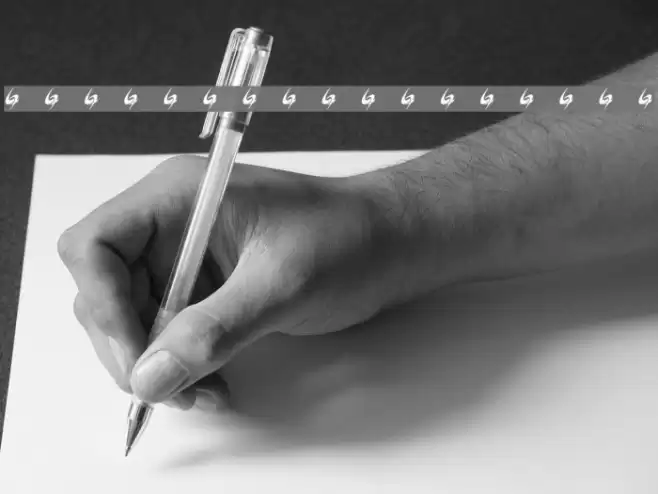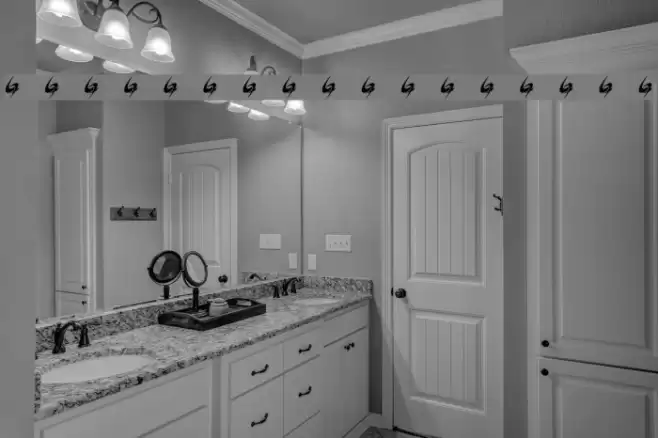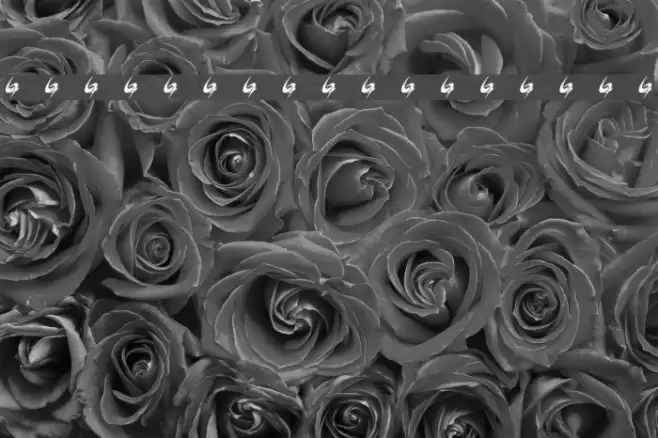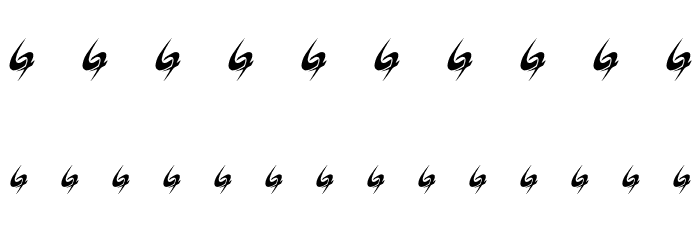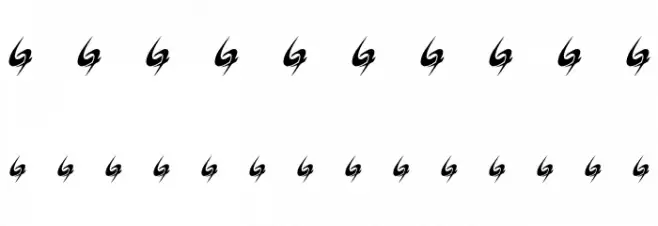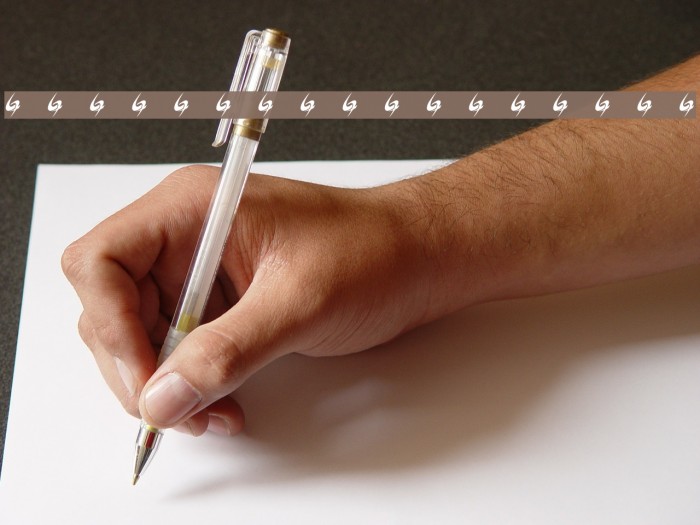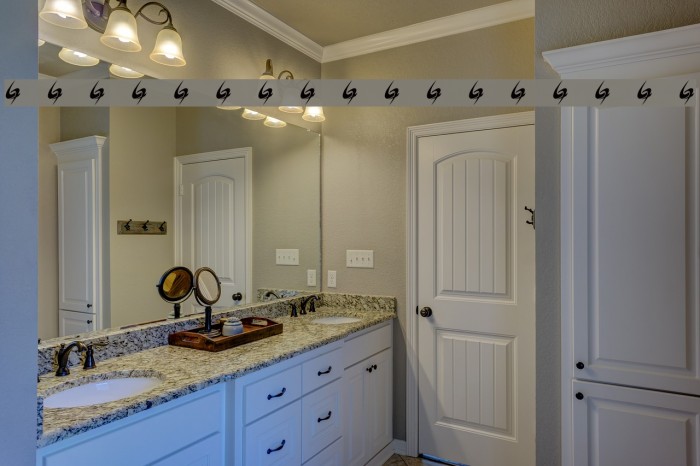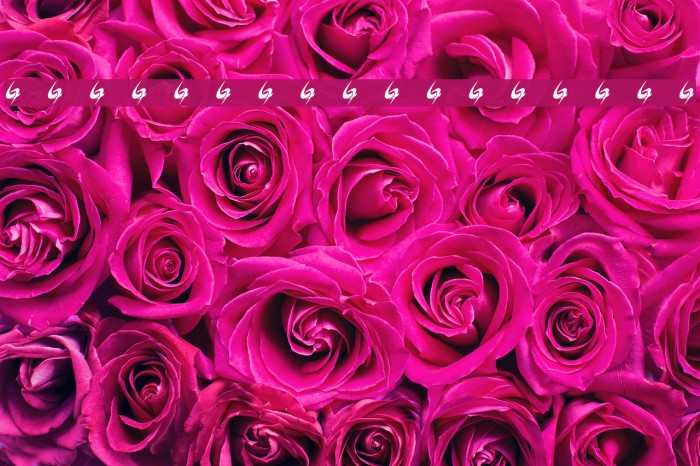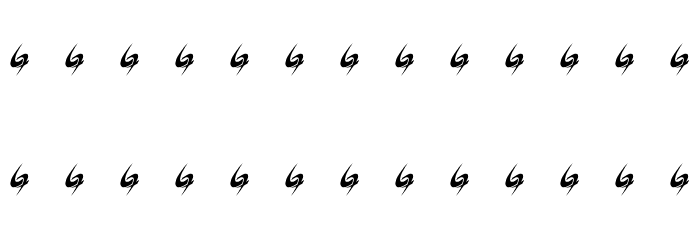
Gycentium-GOESPOP Font
Gycentium-GOESPOP Description
This design features a single, stylized glyph repeated in a grid pattern, resembling a dynamic, calligraphic symbol with sharp, sweeping strokes and a modern, artistic flair. The character has a bold, brush-like appearance with high contrast between thick and thin lines.
A bold, calligraphic symbol with dynamic, sweeping strokes from Uncategorized fonts.
- Proposed Projects: Branding, logos, decorative posters, album covers, artistic projects.
- Overall Style: Decorative, Modern, Artistic
- Use Case: Logos, Decorative elements, Branding